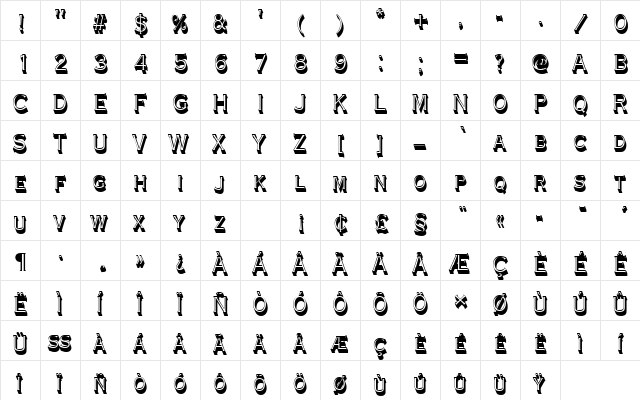
CopperplateTLigConSh1 Regular Font Preview
CopperplateTLigConSh1 Regular
Design Context for CopperplateTLigConSh1 Typeface
CopperplateTLigConSh1 offers clean, dependable letterforms without strong stylistic allegiance, making it a practical choice for designers who need flexibility.